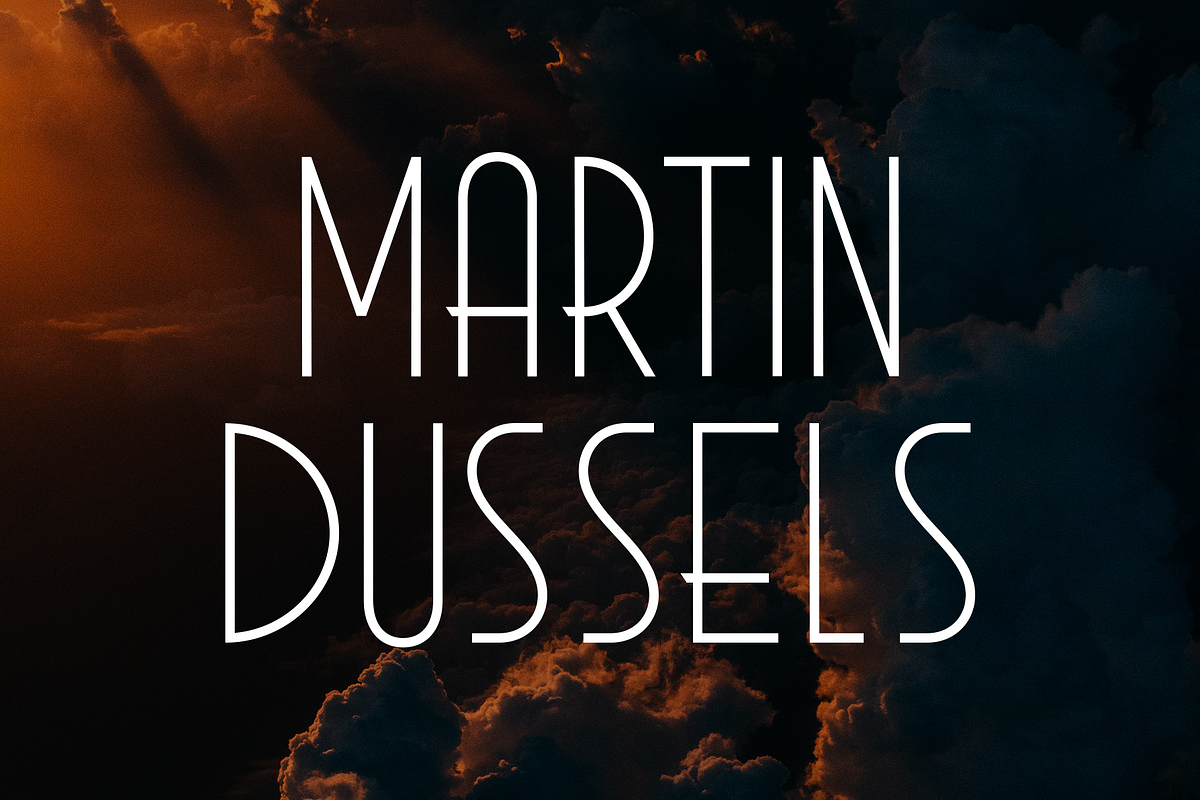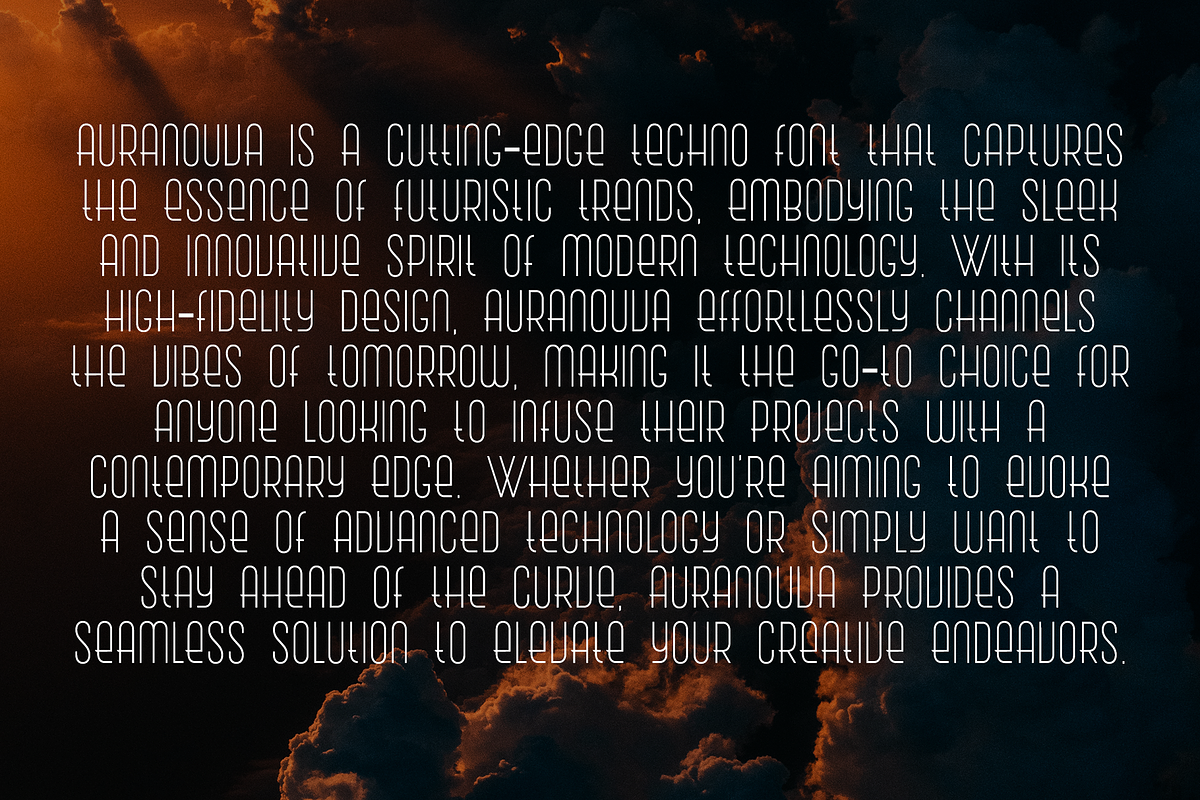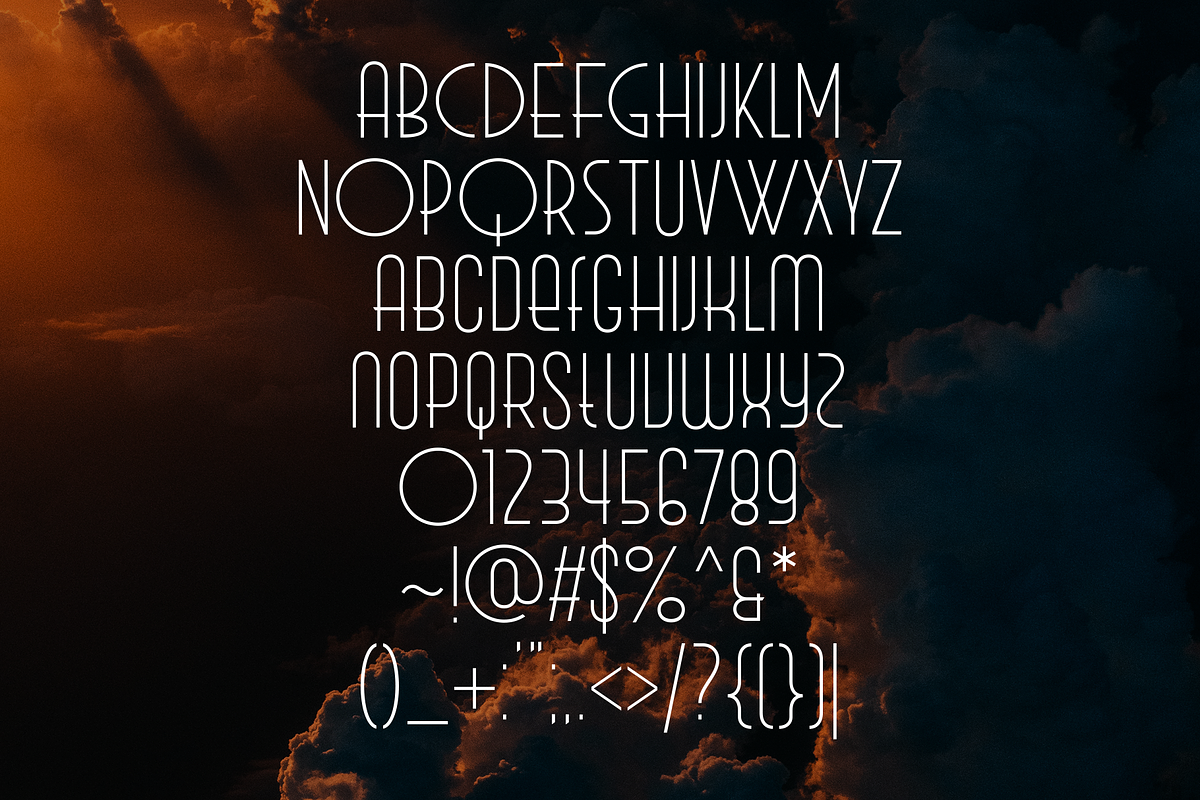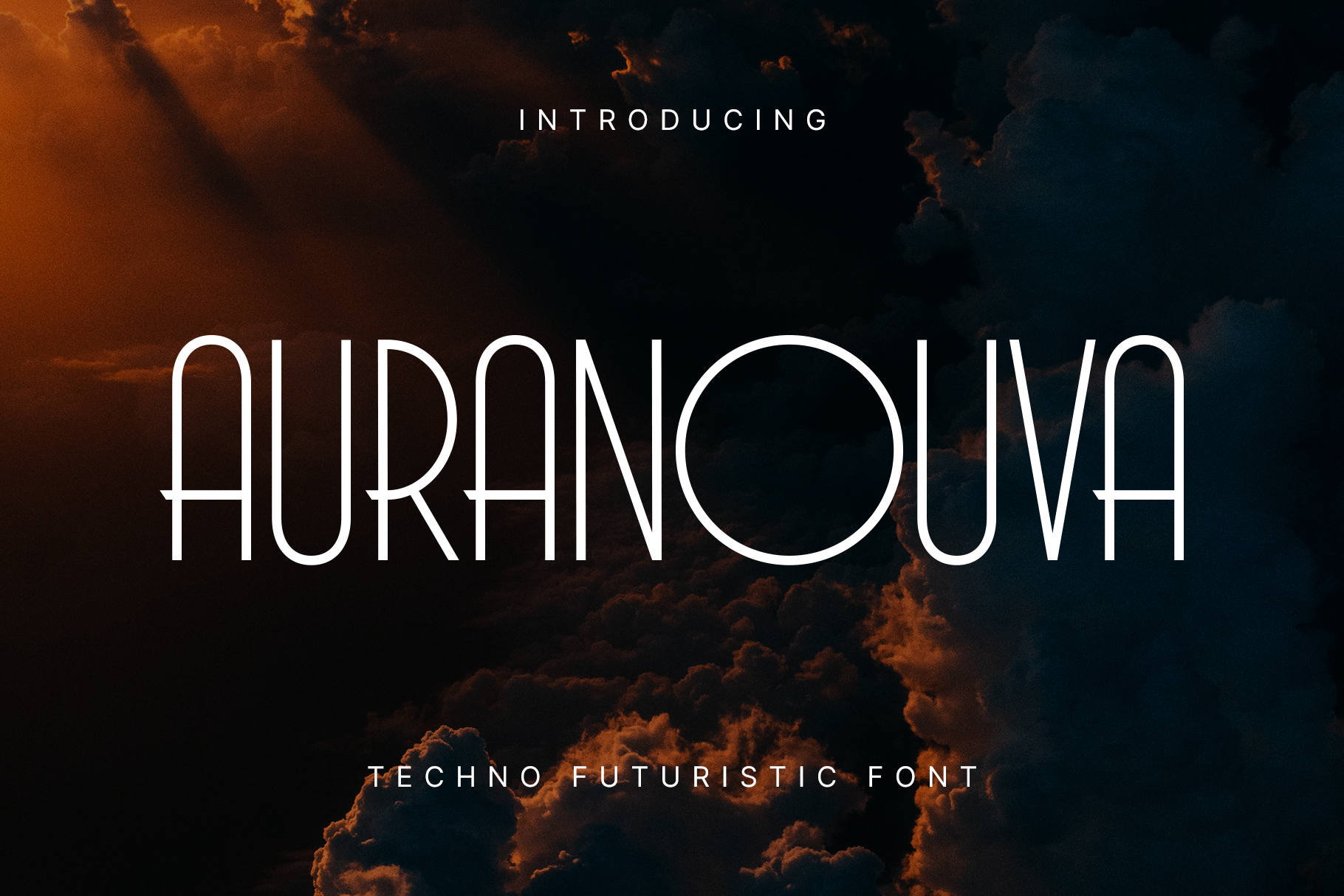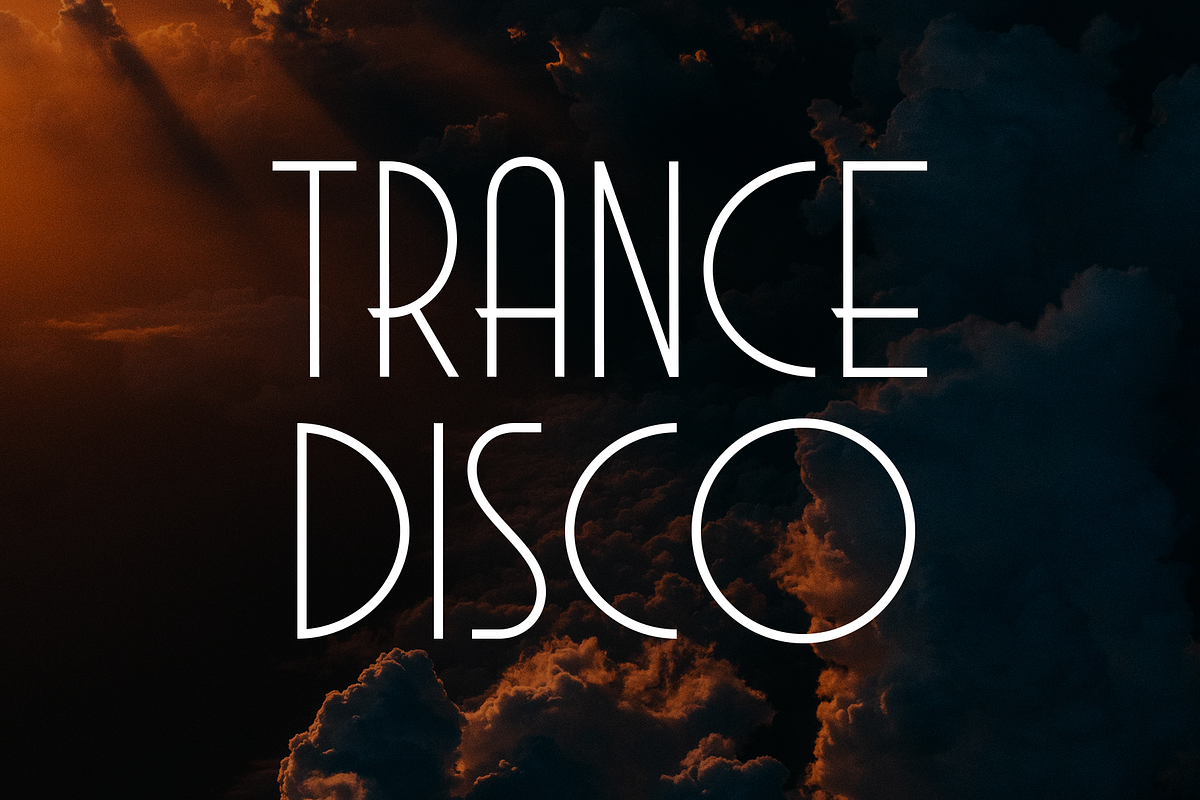
Auranouva – Techno Futuristic Fonts
Auranouva is a cutting-edge techno font that captures the essence of futuristic trends, embodying the sleek and innovative spirit of modern technology.
With its high-fidelity design, Auranouva effortlessly channels the vibes of tomorrow, making it the go-to choice for anyone looking to infuse their projects with a contemporary edge.
Whether you're aiming to evoke a sense of advanced technology or simply want to stay ahead of the curve, Auranouva provides a seamless solution to elevate your creative endeavors.